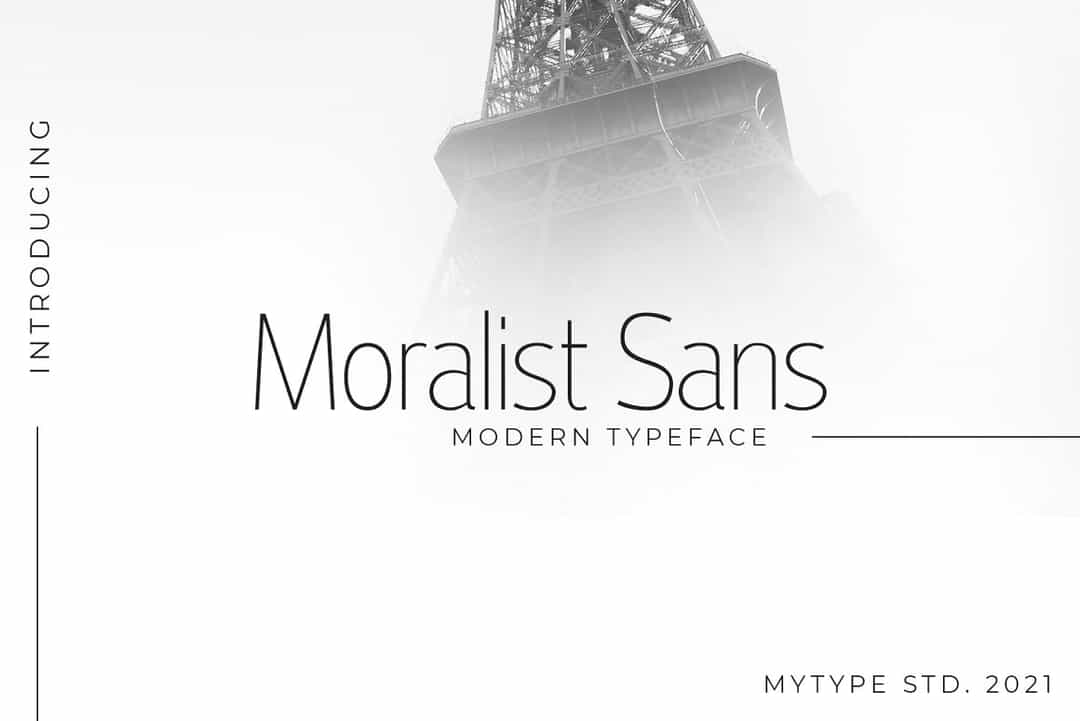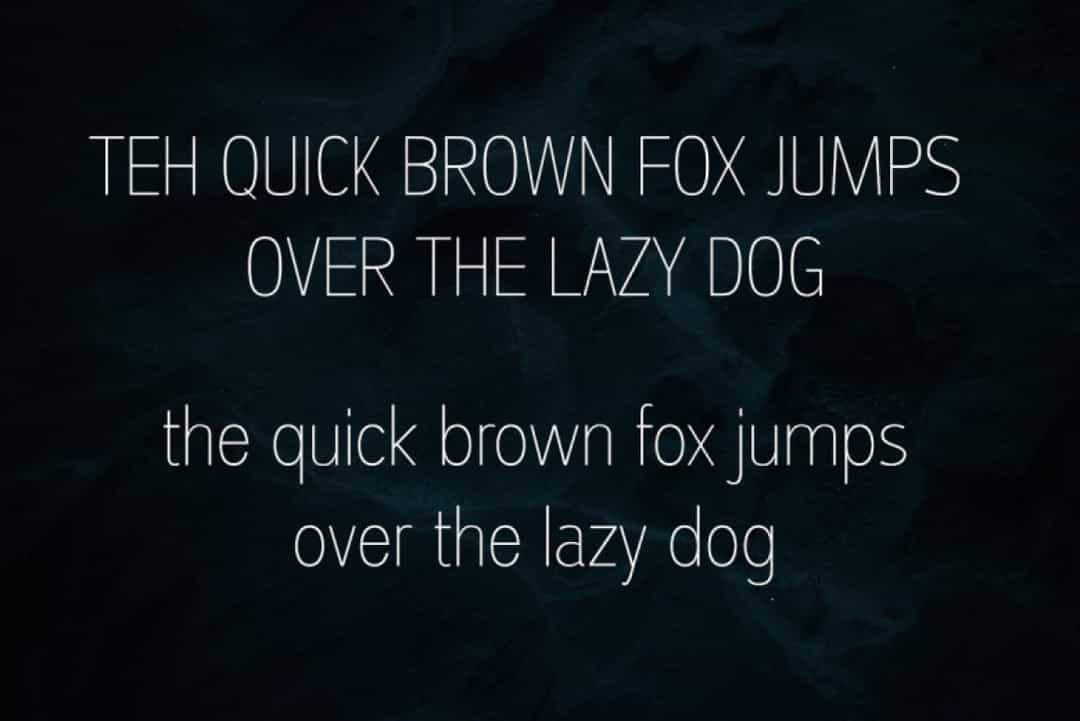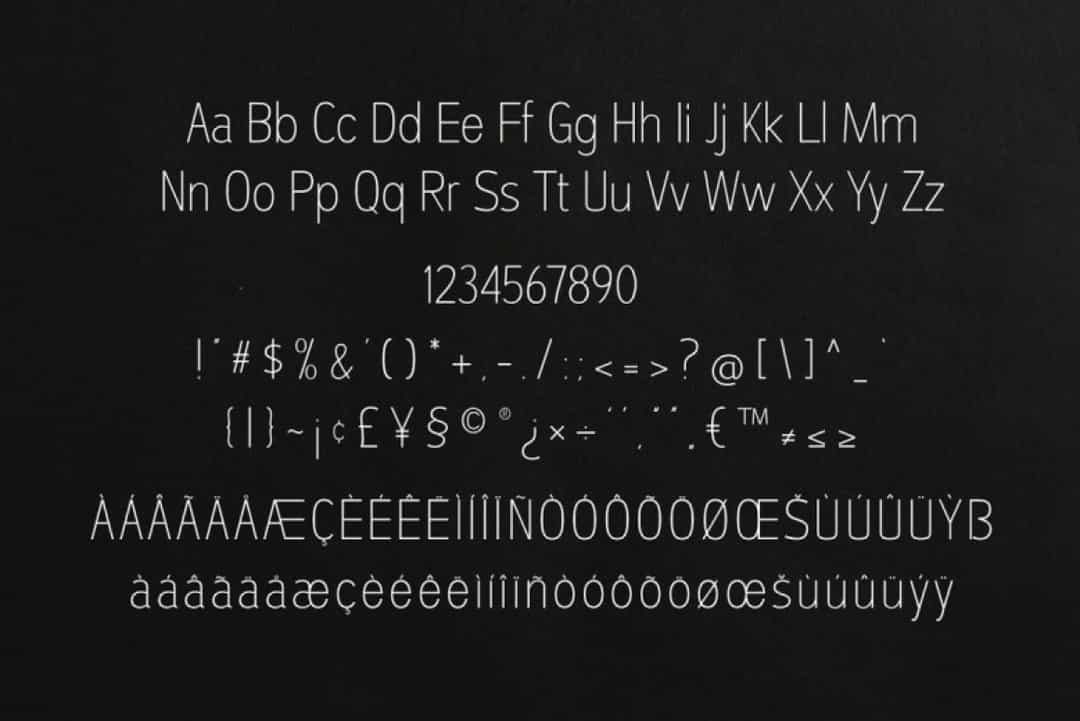
Moralist Sans is a Sans Serif font collection with natural movement, offering elegance to your work. Perfect for T-shirts, quotes, products, brands, titles names posters and book covers or anything requiring elegance this font is an outstanding option!